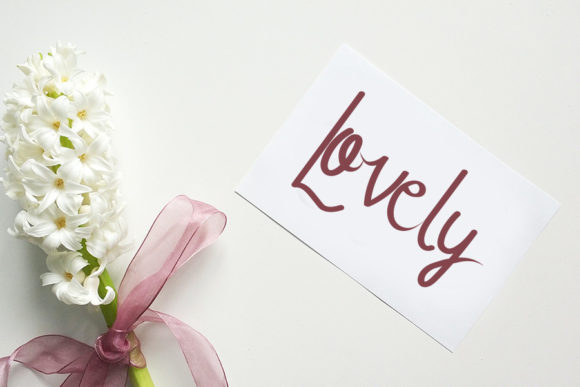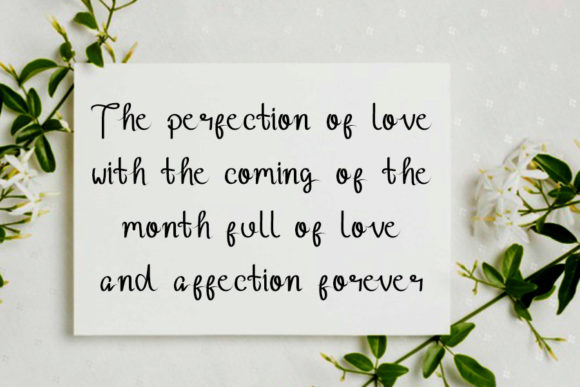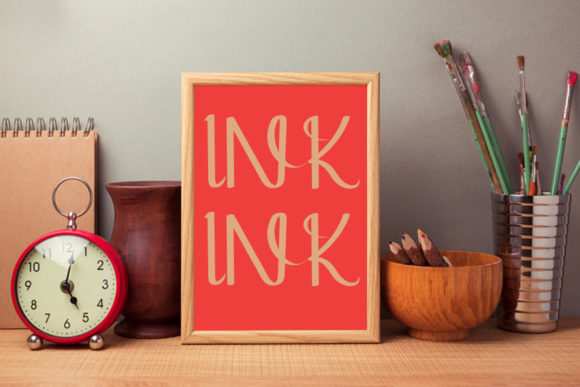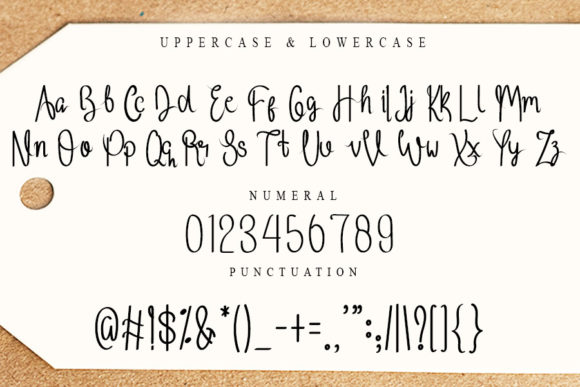
Introduction to Night Moment Font
Night Moment is a delicate and elegant handwritten font.
Simple and easy to use, this font will be very beautiful if you mix it with your various craft designs .
Key Features of Night Moment Font